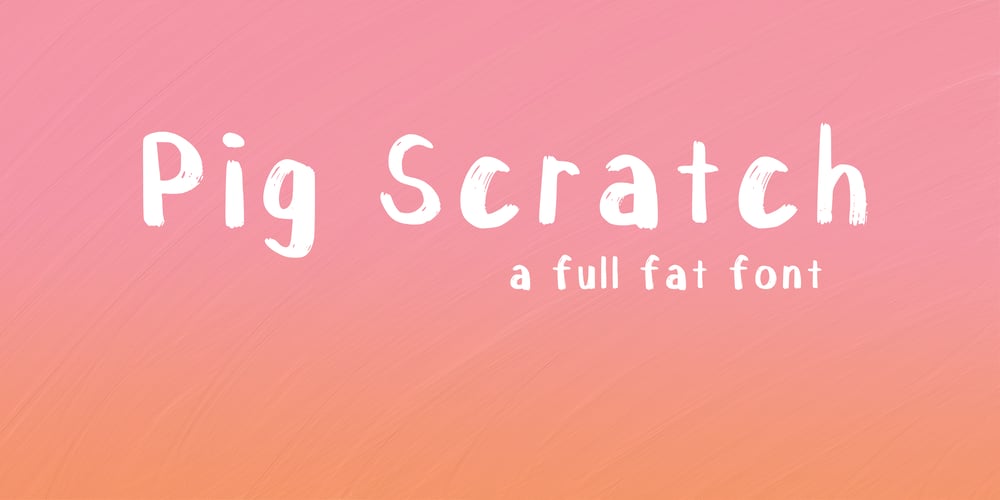
Pig Scratch
Pig Scratch font
Pig Scratch Font Family was designed by Krysten Tom and published by KTEN Fonts. Pig Scratch contains 1 styles and family package options. Need some Pig Scratch to go with your chicken scratch?This is a full fat font with a side of delicious glyphs.Perfect for merch, school lessons, invitations.